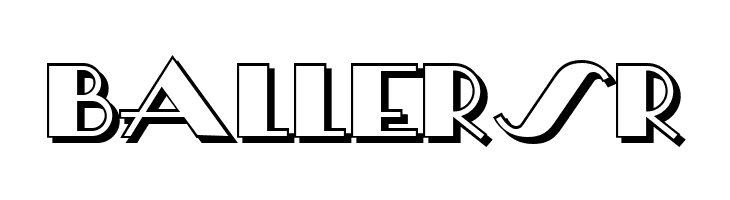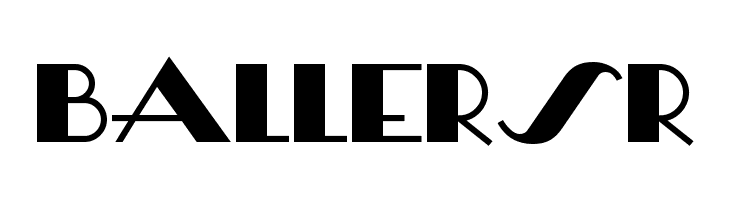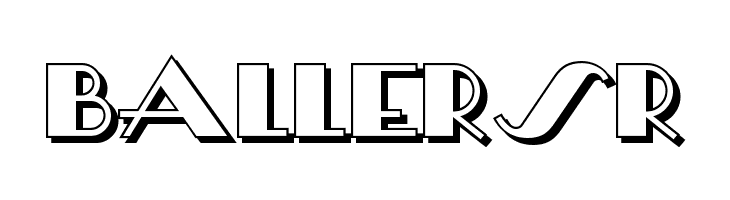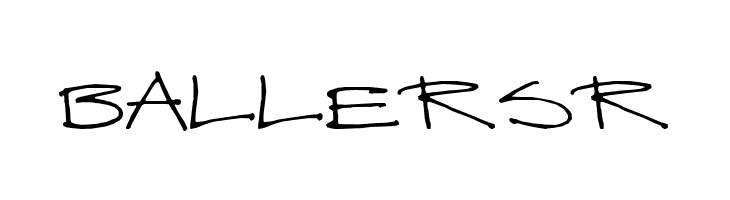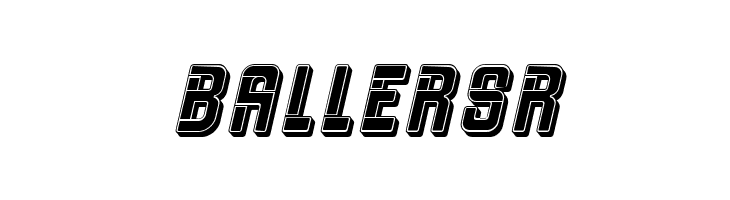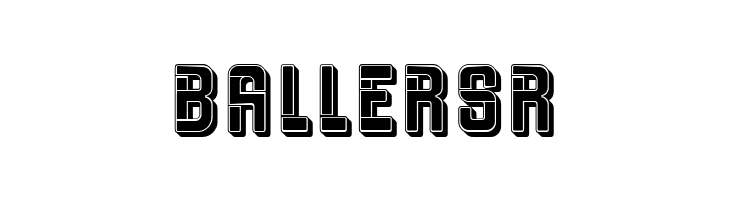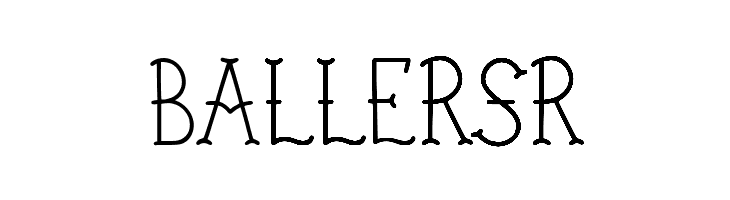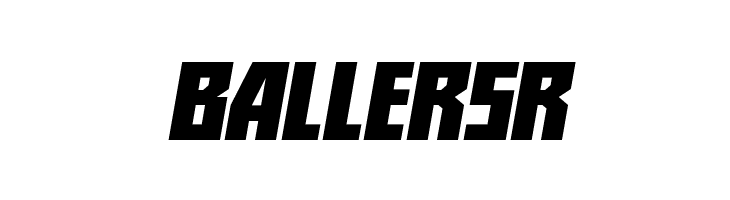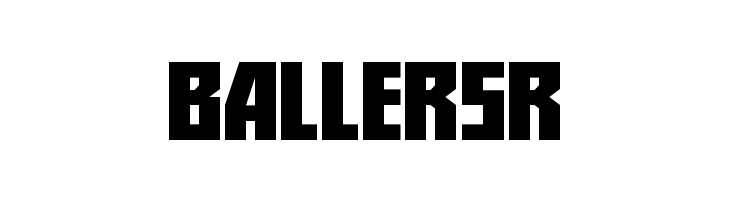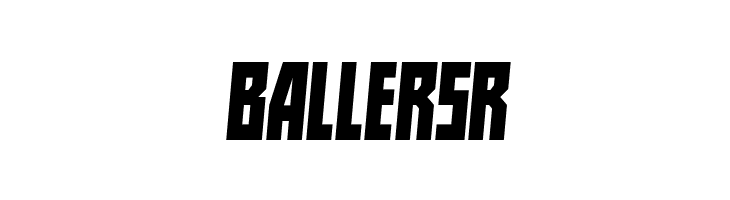
• Her Champions Semi-Italic
A bold, geometric font with a dynamic, semi-italic style.
• Her Champions Semi-Leftalic
A bold, angular font with a dynamic slant and geometric influence.
• Her Champions Super-Italic
A bold, italicized font with sharp angles and a dynamic, modern style.
• Her Champions Wide
• Her Champions Wide Italic
A bold, wide, and italic font with a futuristic, angular design.
• Her Garden Regular
• Her Royal Snootyness
• Her Song Demo
A whimsical, decorative font with a playful, handwritten style.
• Hera
A modern, geometric font with arrow-like extensions and a technical appearance.
• Heraat
A bold, geometric font with a modern and industrial style.
• Herakles
A bold, angular font inspired by ancient Greek inscriptions.
• Herald Regular
• Herald Square NF
A bold, geometric font with high contrast and modern appeal.
• Herald Square Two NF
A bold, decorative font with a three-dimensional shadow effect.
• Heraldic
• HeraldicDevices
• Heraldics
Ornate heraldic shields with detailed line illustrations as characters.
• Heraldry Italic
Bold, italicized font with a three-dimensional shadow effect.
• Heraldry Regular
A bold, geometric font with a three-dimensional effect and strong contrast.
• HeraldryPartsOne
Ornate, illustrative font with heraldic and symbolic motifs.
• HeraldSquare
A bold, Art Deco-inspired font with geometric shapes and sharp angles.
• HeraldSquareNF
A bold, geometric font with Art Deco influences and high contrast strokes.
• HeraldSquareTwoNF